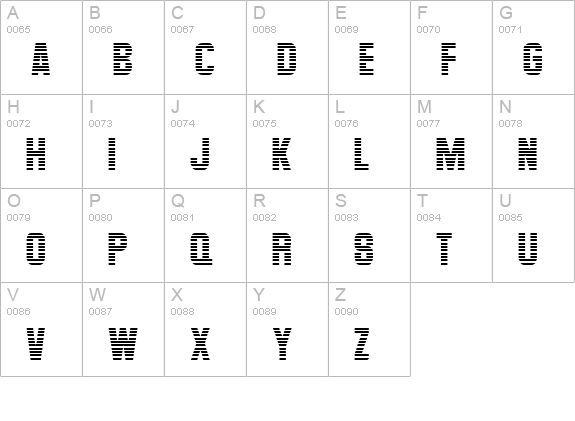
Levelor Display Caps SSi Font Details
Levelor Display Caps SSi font is a stunning and eye-catching typeface that will elevate any design project to new heights. With its sleek and modern letterforms, this font exudes sophistication and elegance. The Levelor Display Caps SSi font is perfect for creating headlines, logos, posters, and other visually striking designs. Its bold and distinctive characters command attention and make a powerful statement. What sets this font apart is not only its striking design, but also its availability for free. Yes, you heard it right! The Levelor Display Caps SSi font is freely available to download at FontsMarket.com. This means that you can add this incredible font to your design arsenal without spending a penny. So why wait? Take your design projects to the next level with the Levelor Display Caps SSi font. Download it for free at FontsMarket.com and unleash your creativity today!